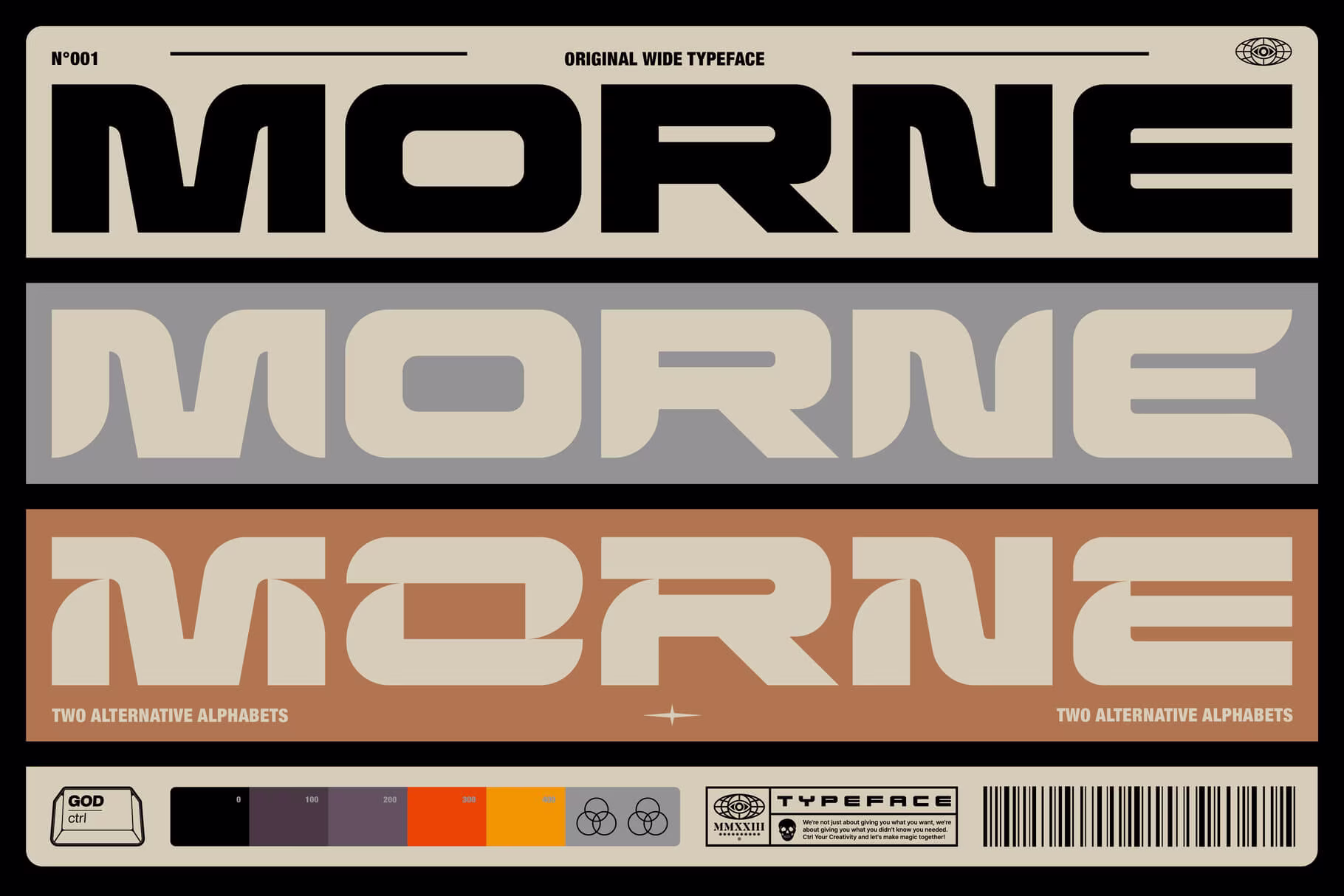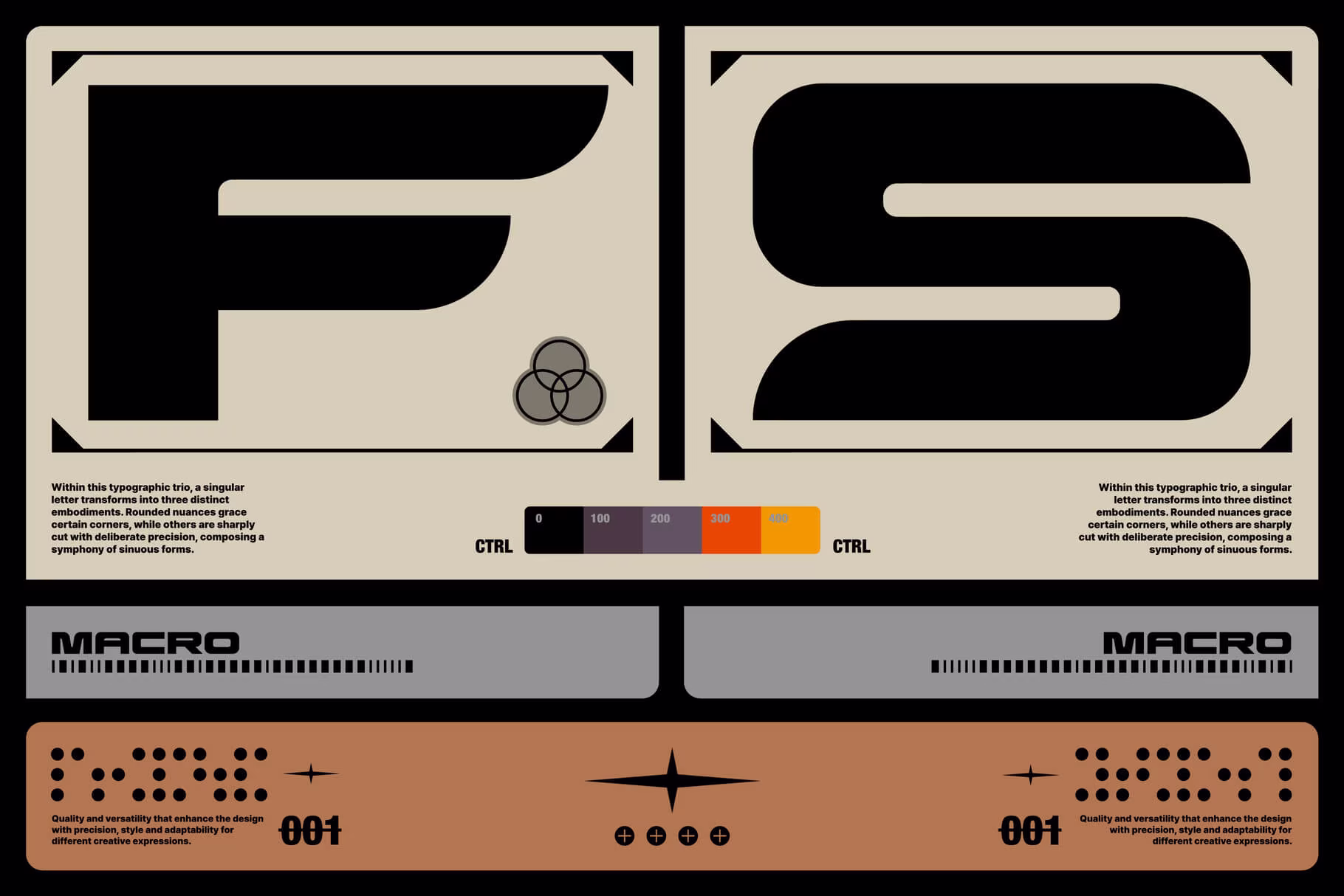
Morne Display Typeface
Behold, designers! Morne just dropped into the font game, and let us tell you, it’s not here to play — meet our typeface that’s as bold as your morning coffee. Whether you're crafting a killer headline, a sneaky subheading, or a bold poster, Morne’s got your back, front, and even your creative soul, bringing the perfect fusion of wide and heavy that slaps your audience awake. It's a triple-threat wonder with three alternatives for every letter and number, including special, multilingual, and punctuation characters. It’s here to stand out, shout out, and give your font library a sleek upgrade. Click, Design, Ctrl like you mean it with our new bold font.
• One bold typeface
• Three alternatives for each letter and number
• Special characters and punctuation included
Morne Typeface